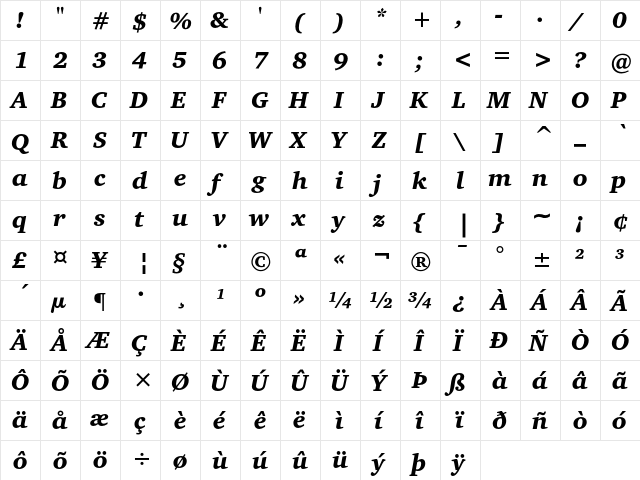
ITC Charter Black Italic
Design Context for ITC Charter Typeface
ITC Charter offers clean, dependable letterforms without strong stylistic allegiance, making it a practical choice for designers who need flexibility. The slanted form adds forward momentum and visual energy.
Pro Tip: Use ITC Charter for emphasis, pull quotes, and subheadings where its slanted energy can add rhythm to the layout.